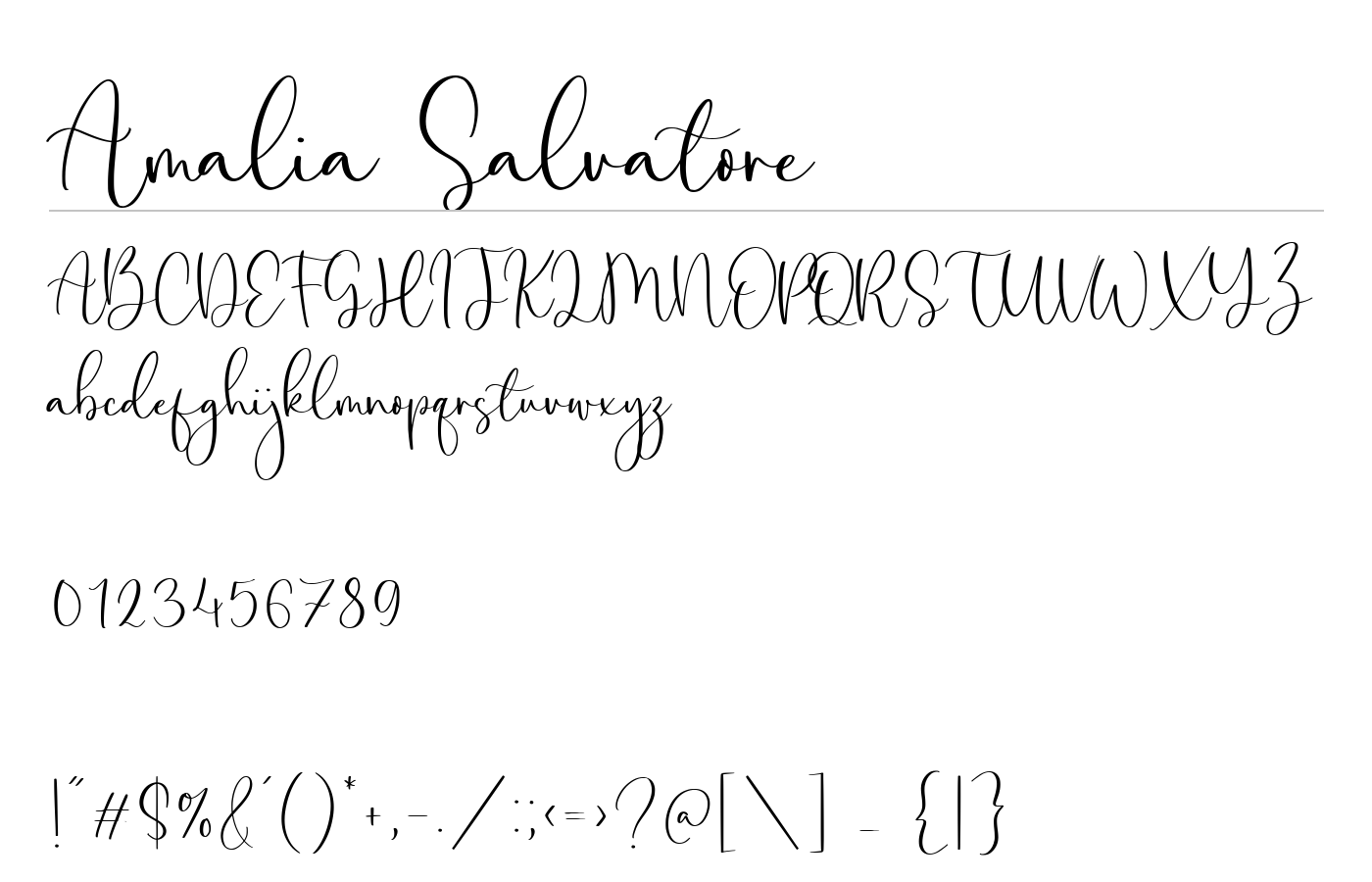
Amalia Salvatore is a delicate, handwritten script font featuring elegant, flowing letterforms with high contrast between thin and slightly thicker strokes. Its tall, slender characters and smooth curves give it a graceful, romantic feel, making it ideal for invitations, branding, and projects that seek a personal, stylish touch. This font works beautifully in decorative headlines and logos where a refined, sophisticated look is desired.
Amalia Salvatore Font
About Amalia Salvatore Font